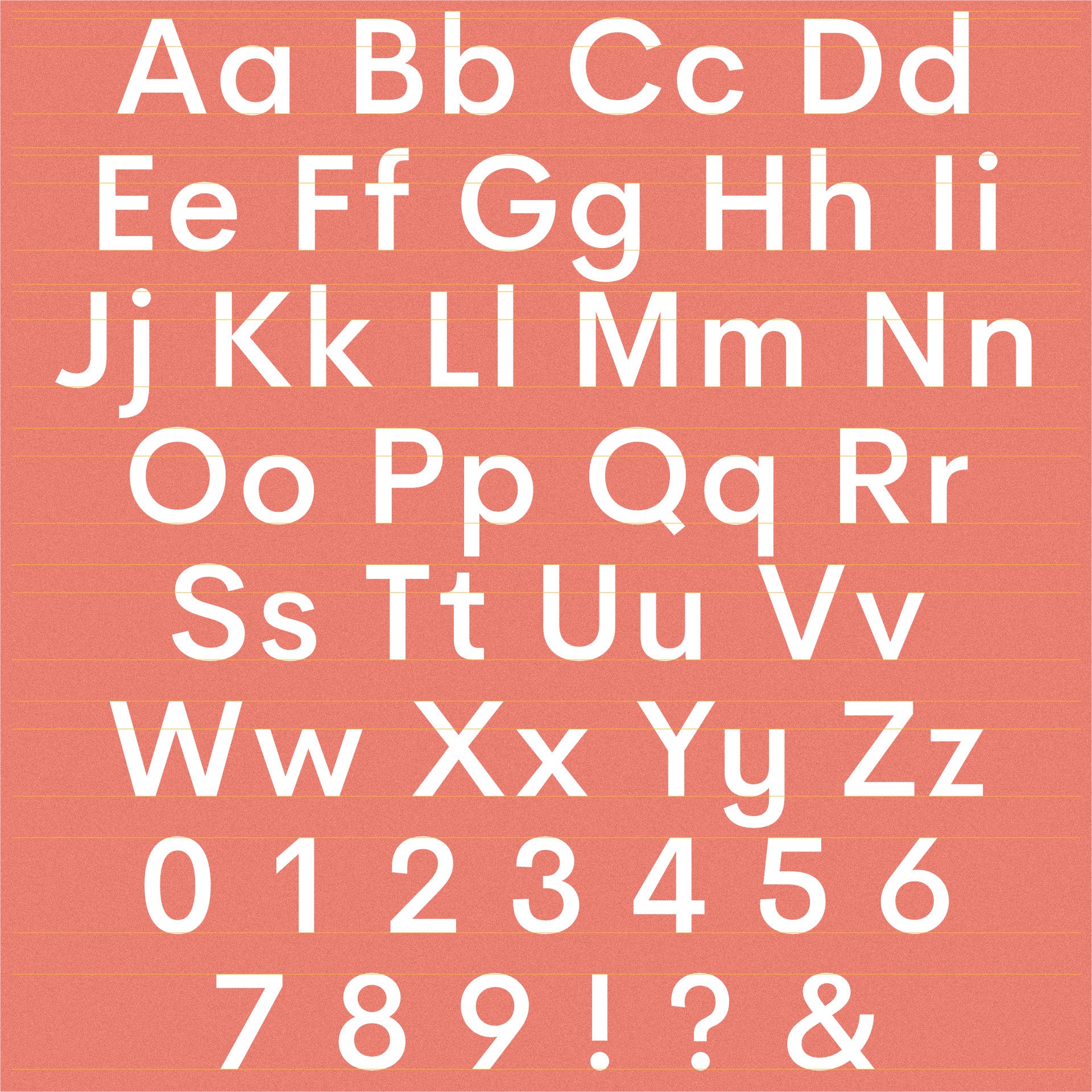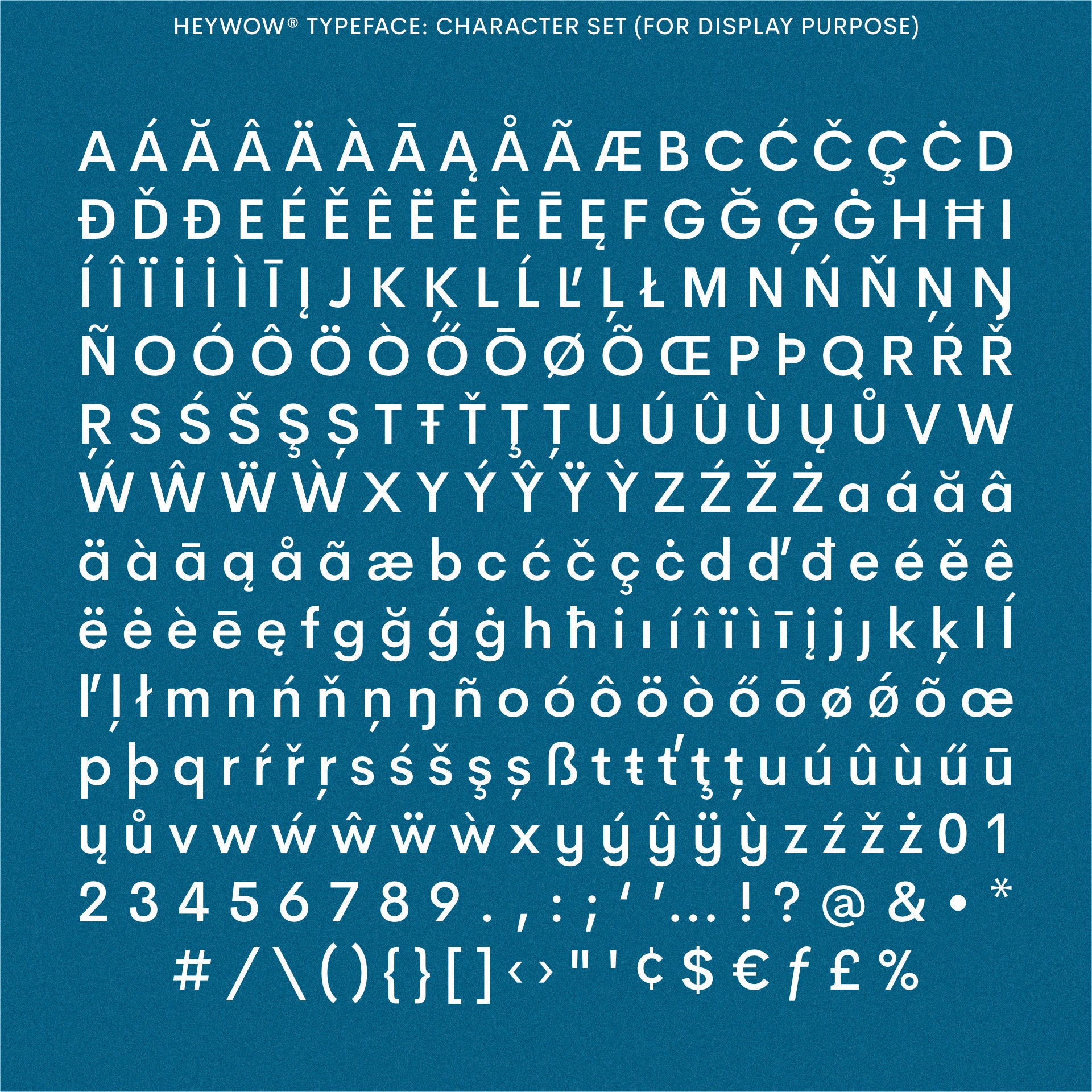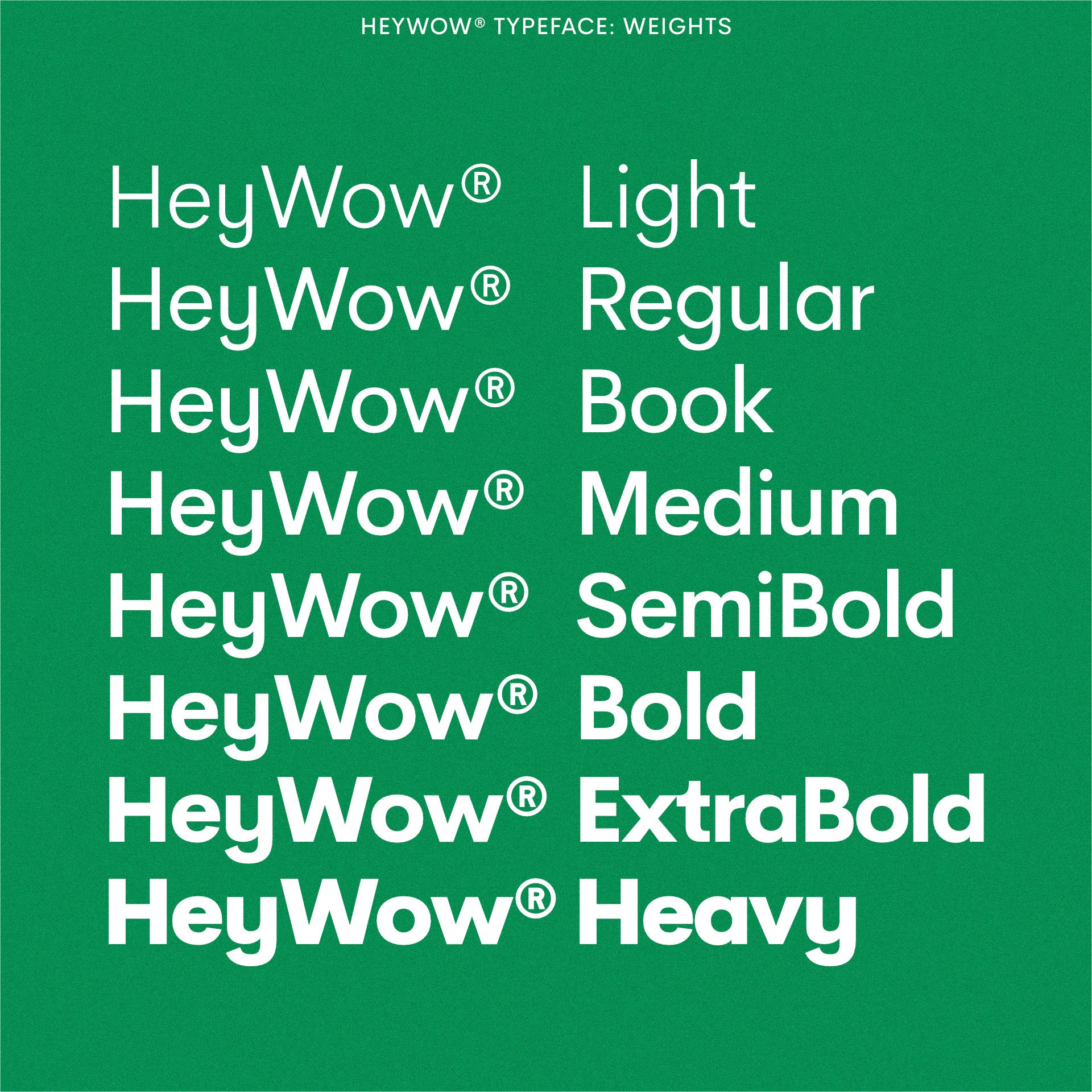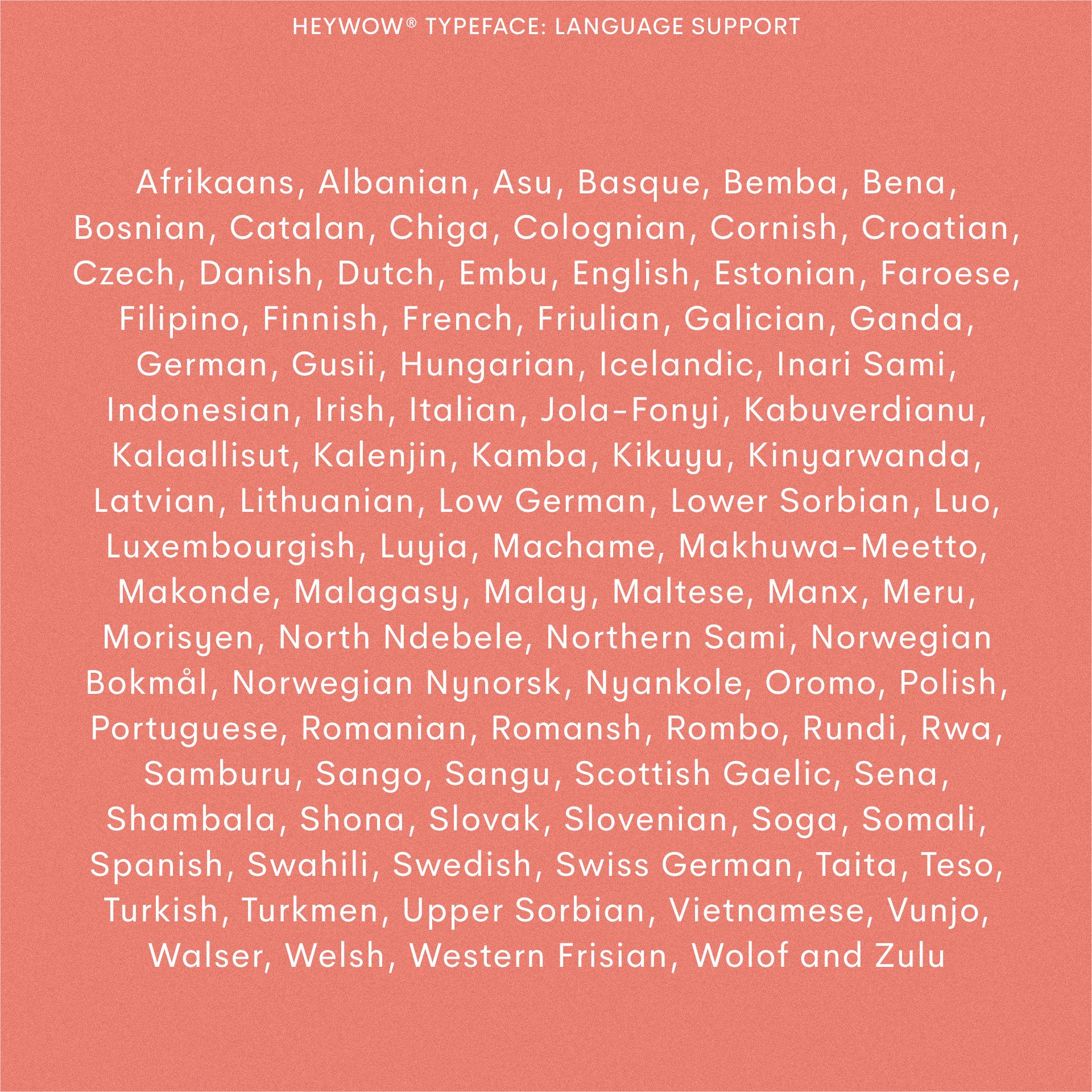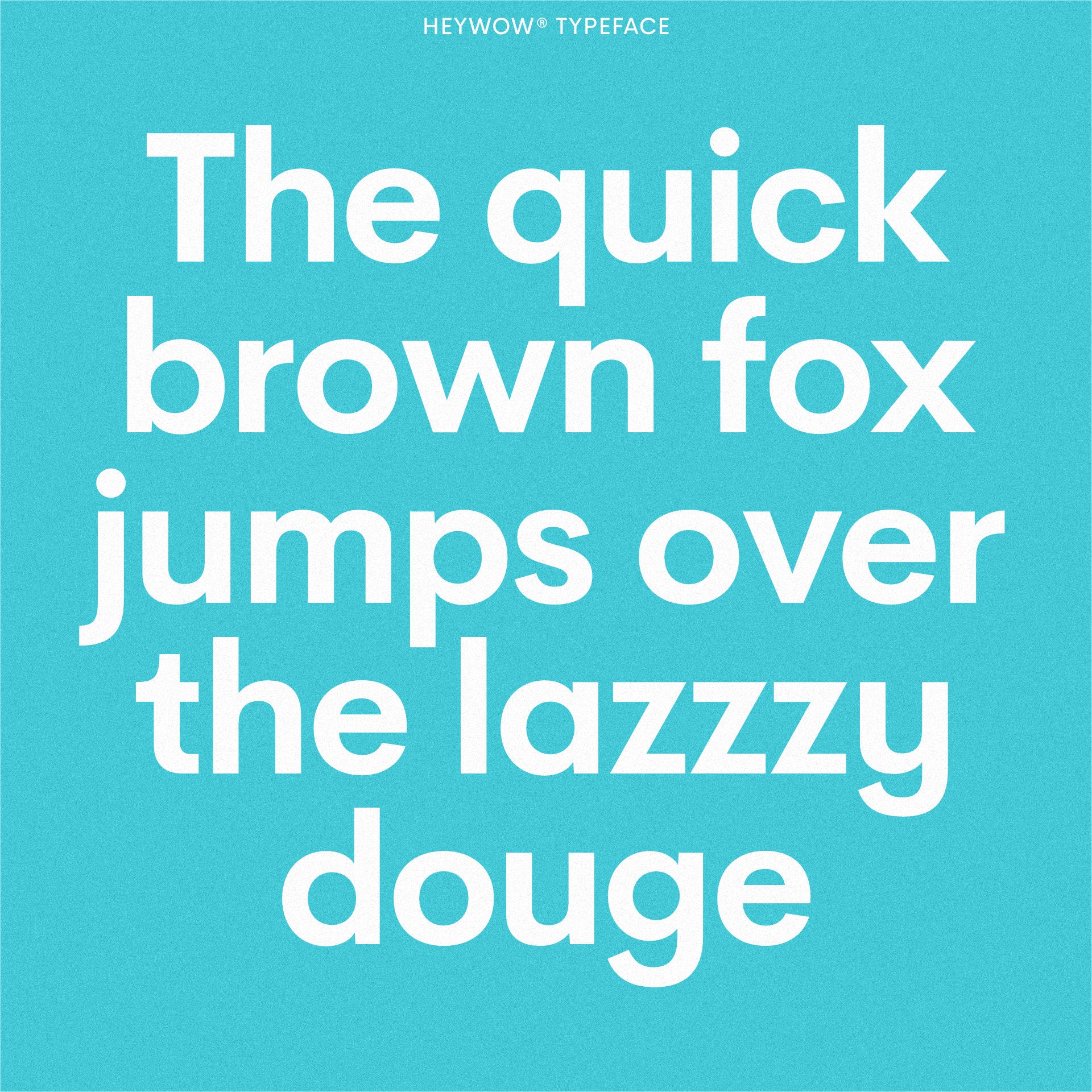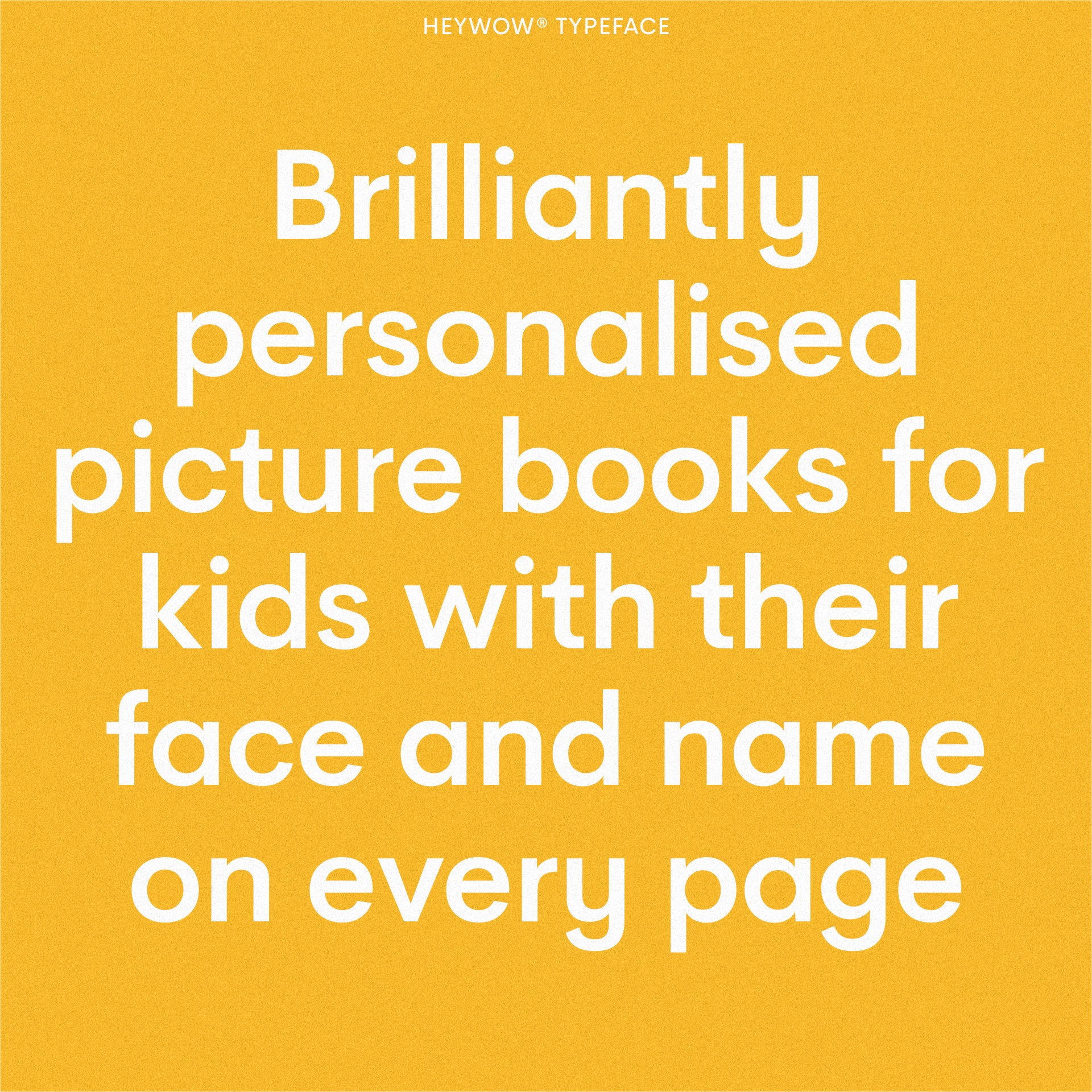
HeyWow Typeface
HeyWow® Typeface was designed by Alfredo Marco Pradil and Daniel Freytag to be used for all things HeyWow® (visit their website here).
Round and with a sensible xHeight for the young reader's eyes, HeyWow® is a fun and great typeface that will surely add a special vibe to reading.